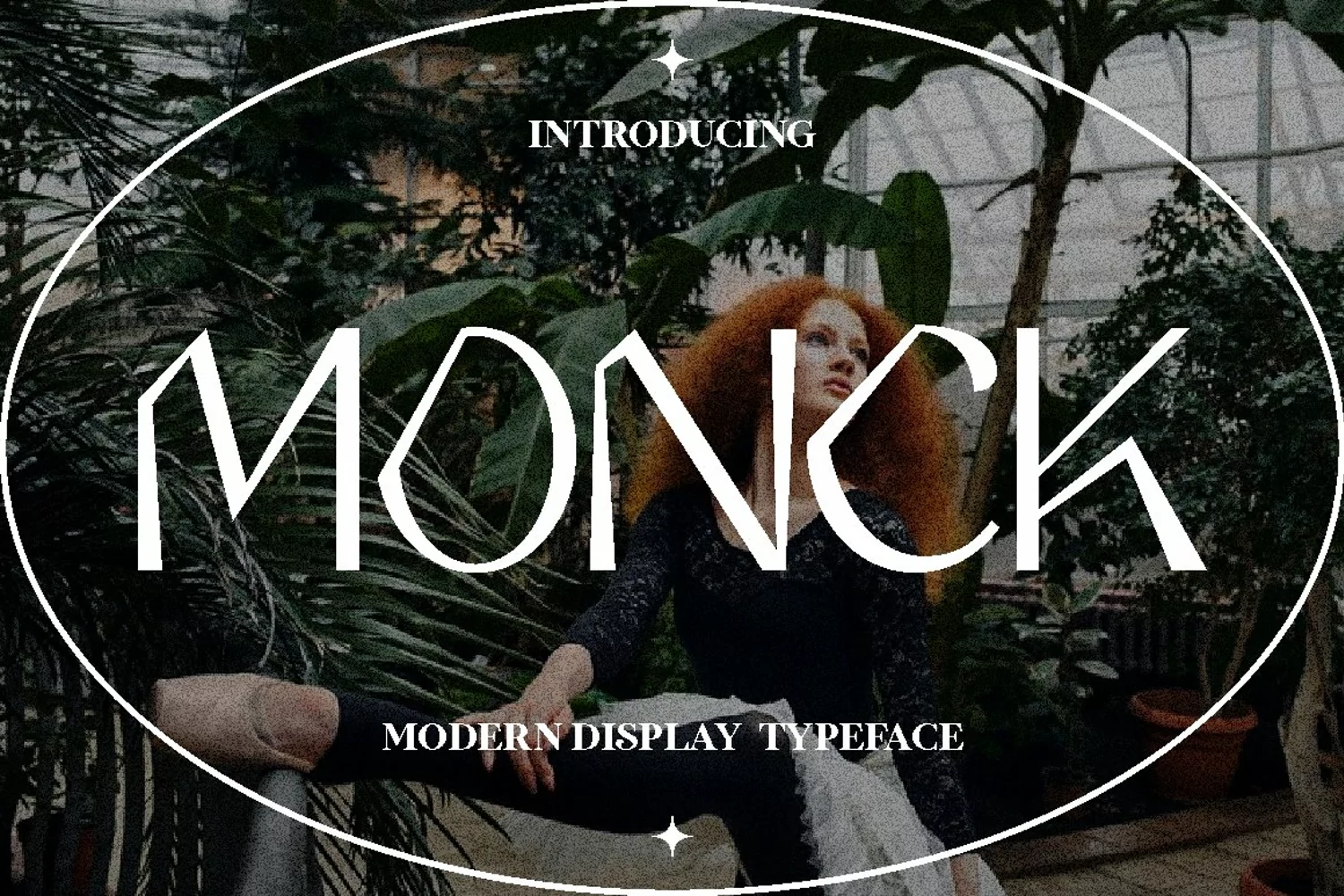
Monck - Modern Display Font
Monck - Modern Display Typeface Font
Introducing a new modern display font called “ Monck “. Inspired from modern typography and lettering in the classic poster and we combine with serif typography style. With Monck, you can make letter combinations for lettering with a lot of options.
Come with open type feature ( a lot of alternates and end swash), its help you to make great lettering.
Monck best uses for Logotype, heading,cover, poster, logos, quotes, product packaging, header, merchandise, social media & greeting cards and many more.
Monck font is also support multi language.